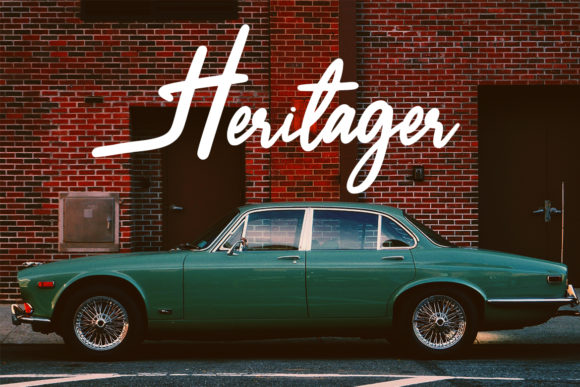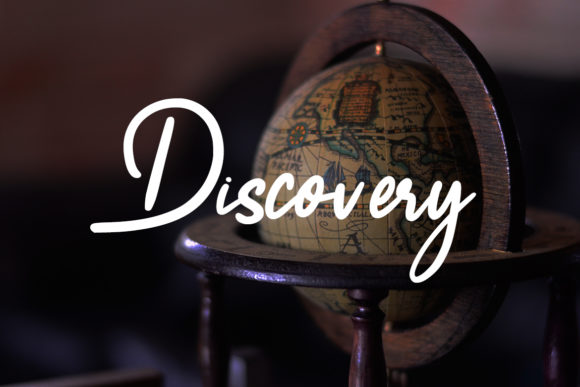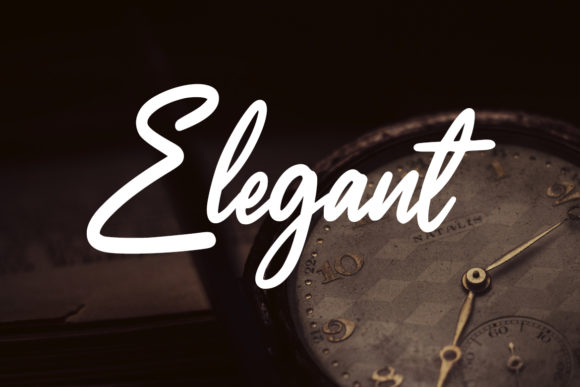
Painted Font
About Painted Font
Painted is a beautiful font that features a varying baseline and smooth lines. It’s the perfect font for adding a unique spark to any creative idea!